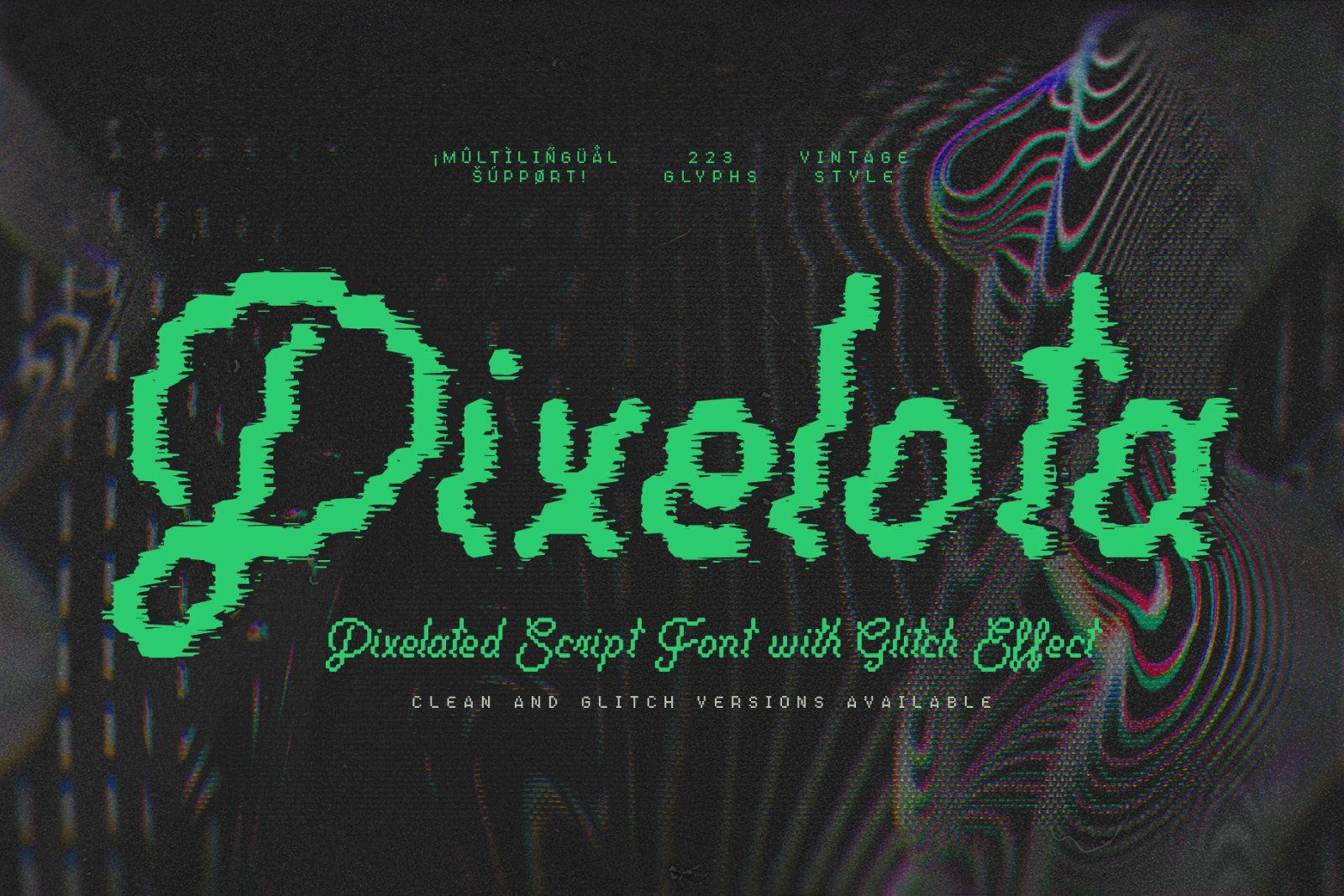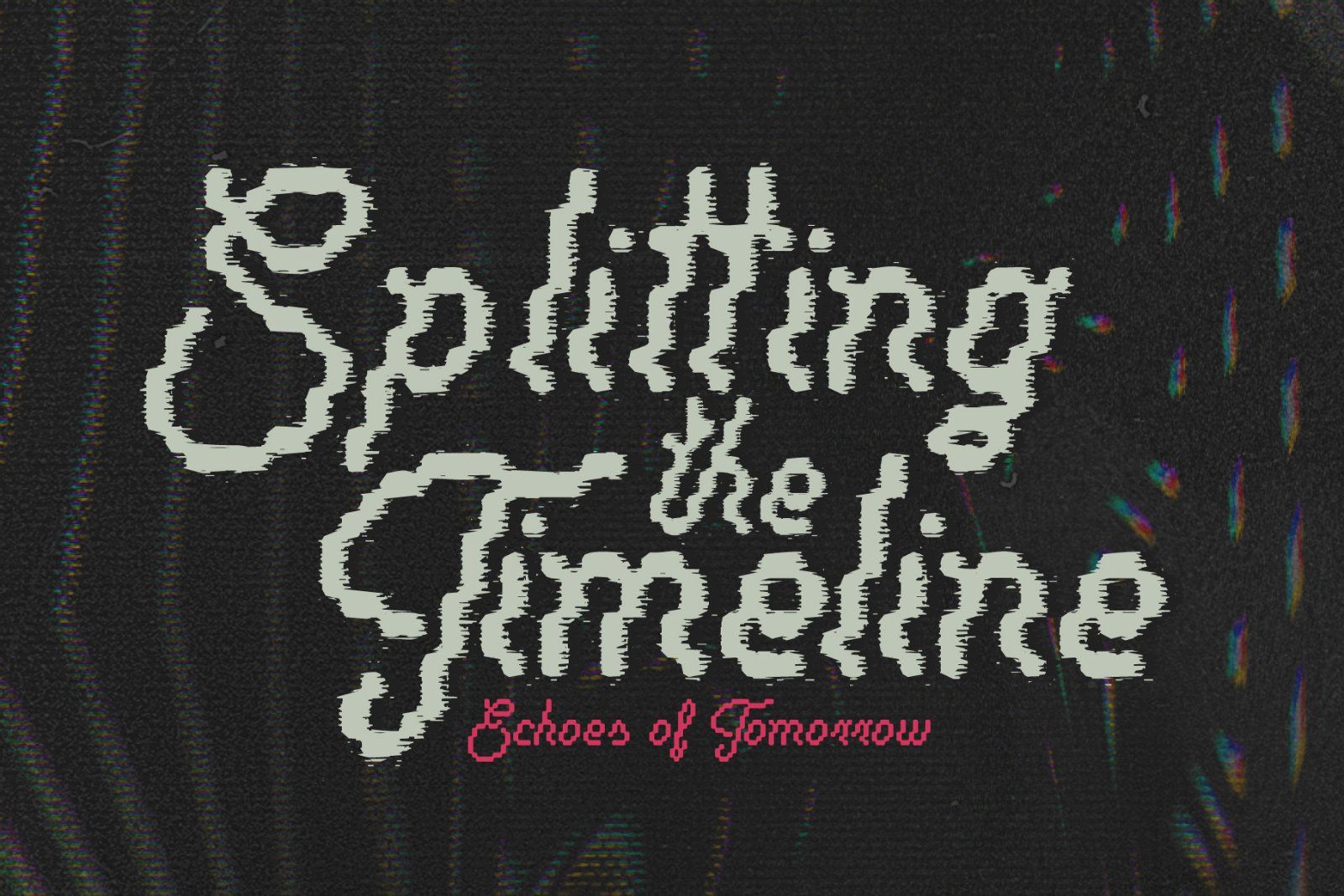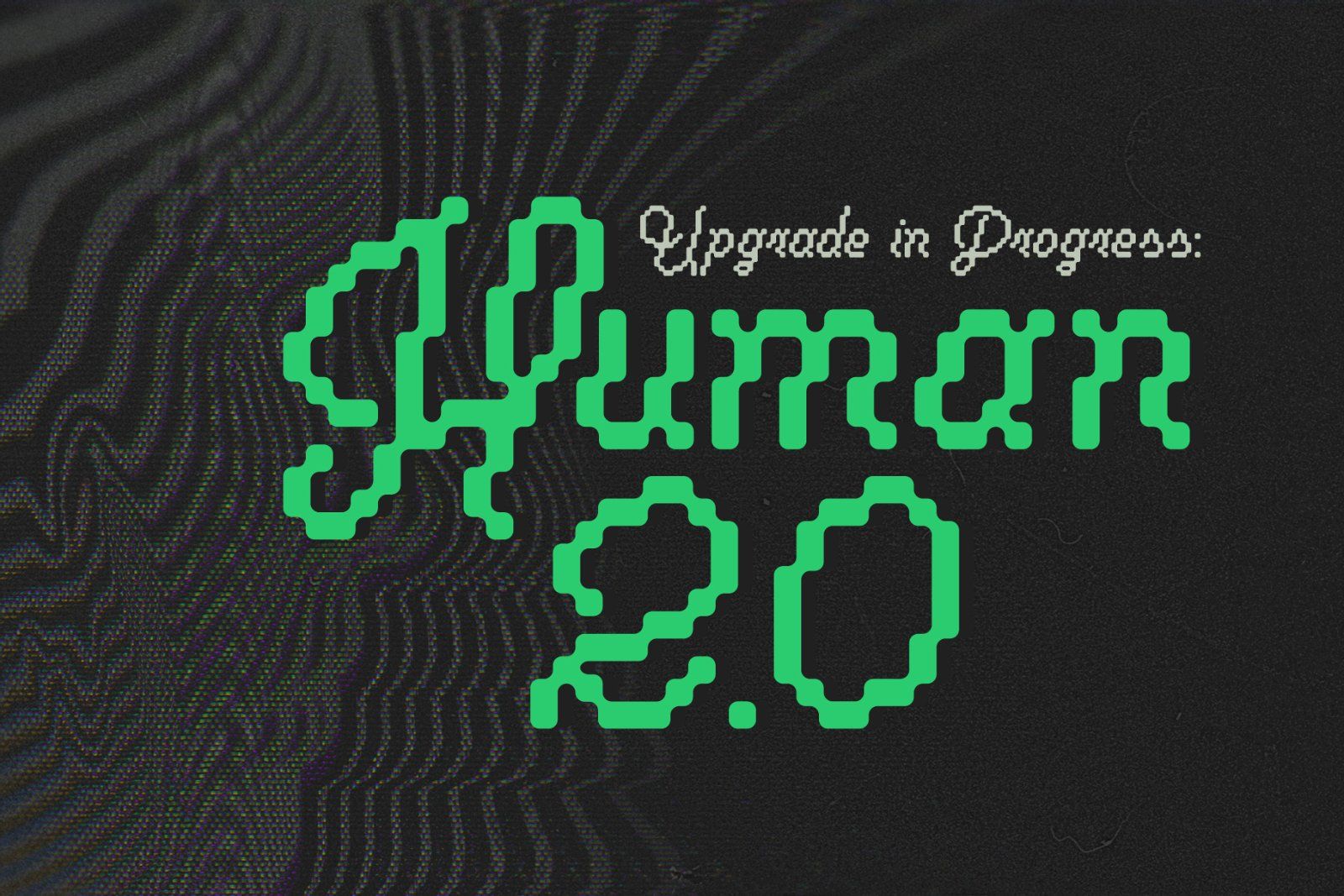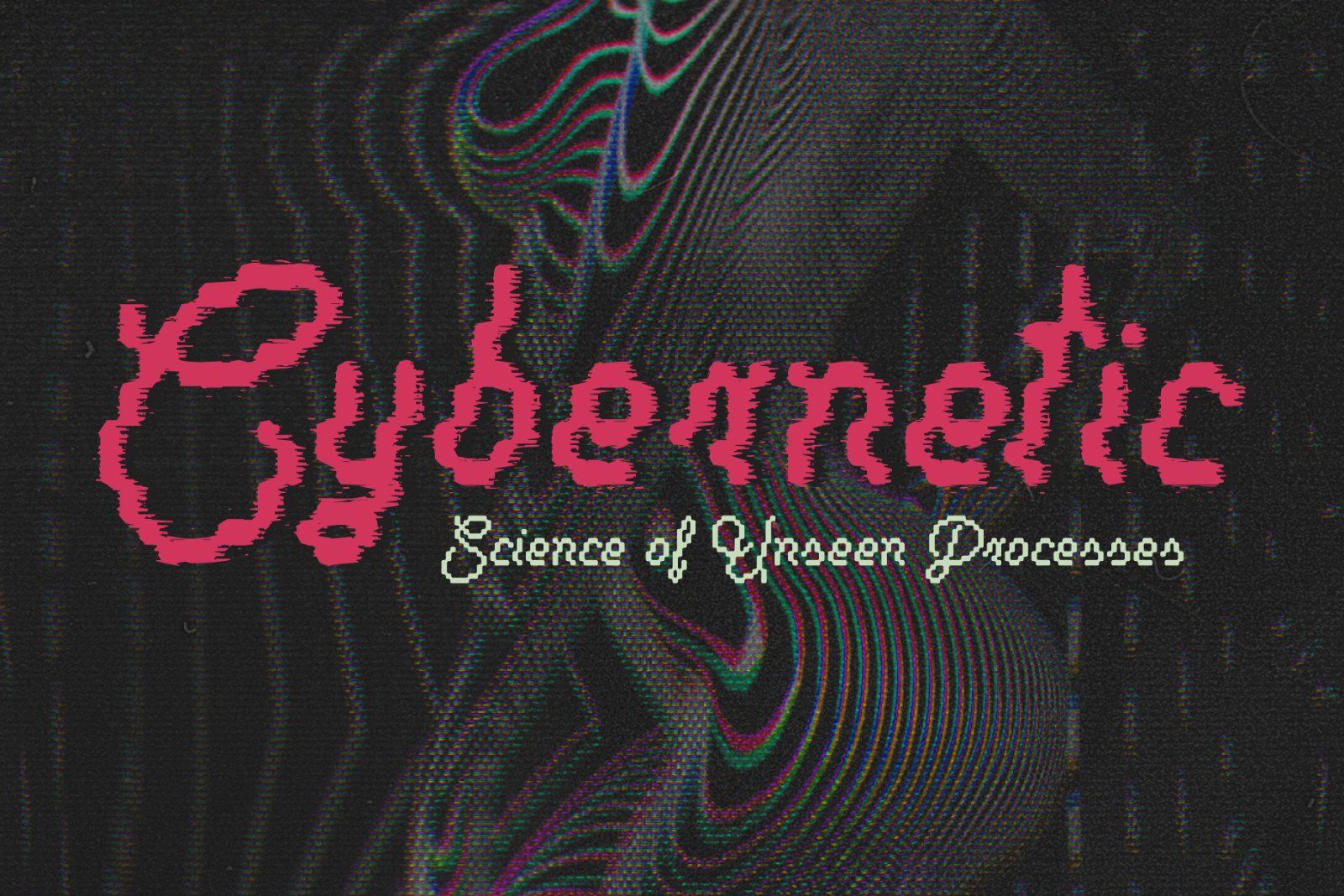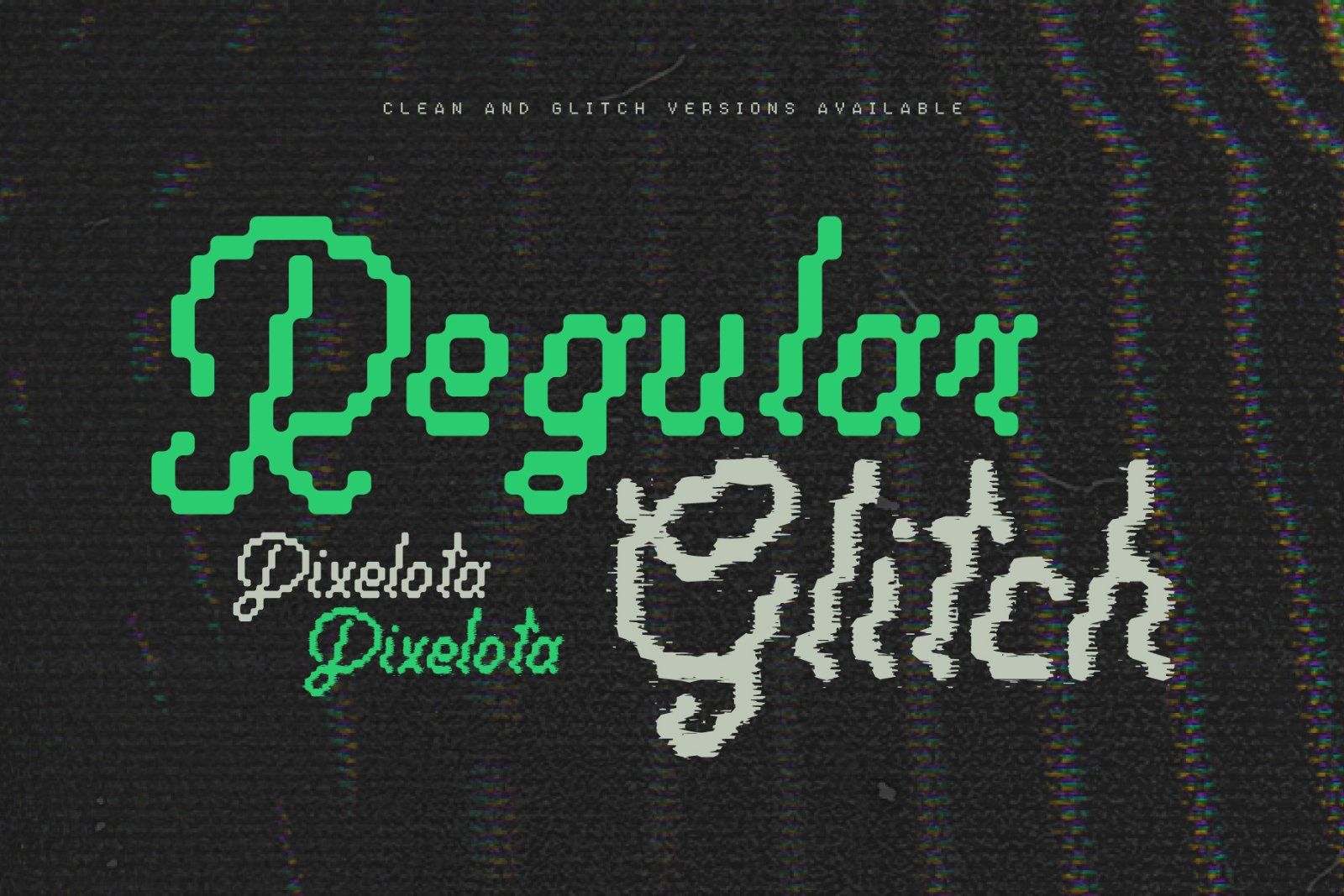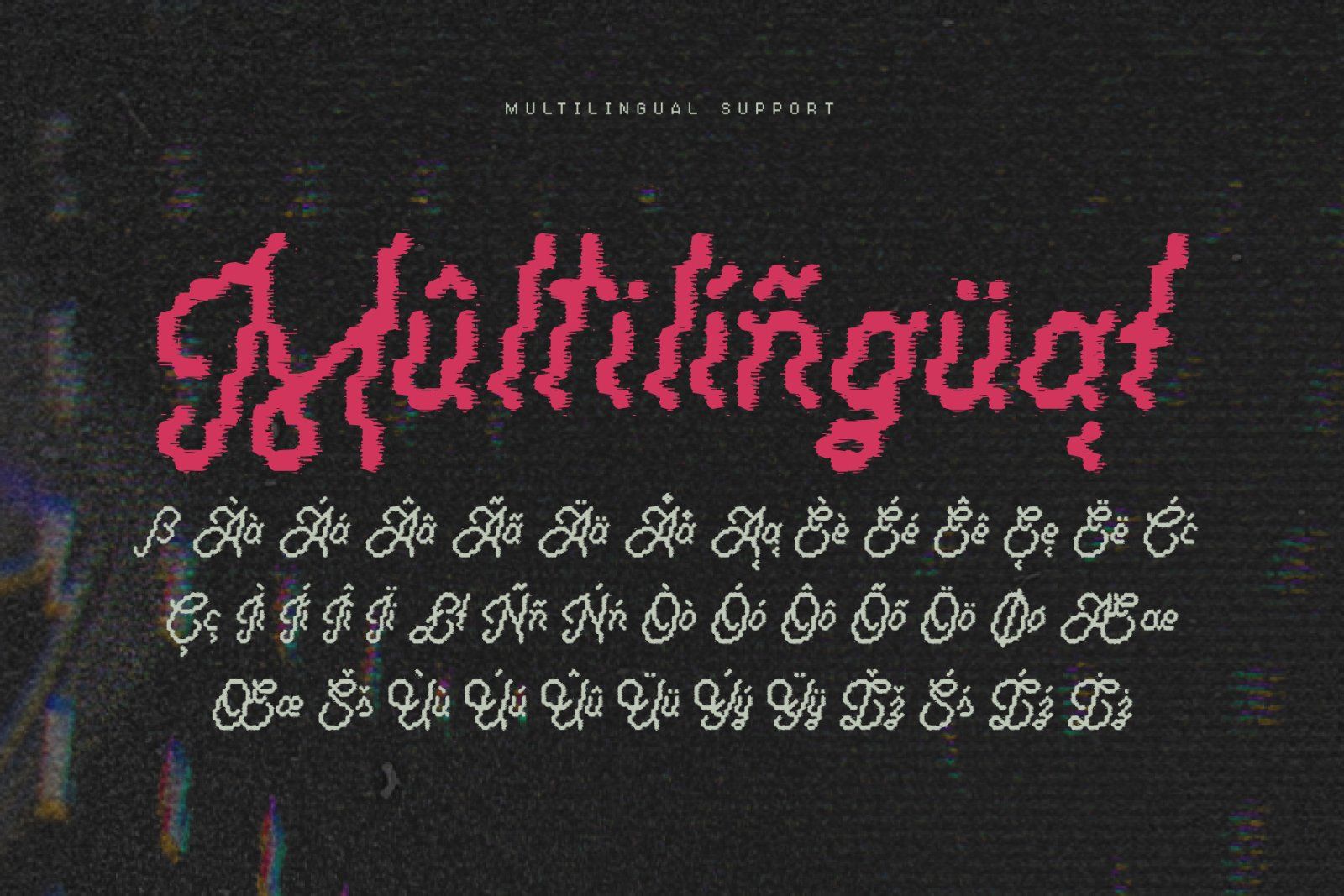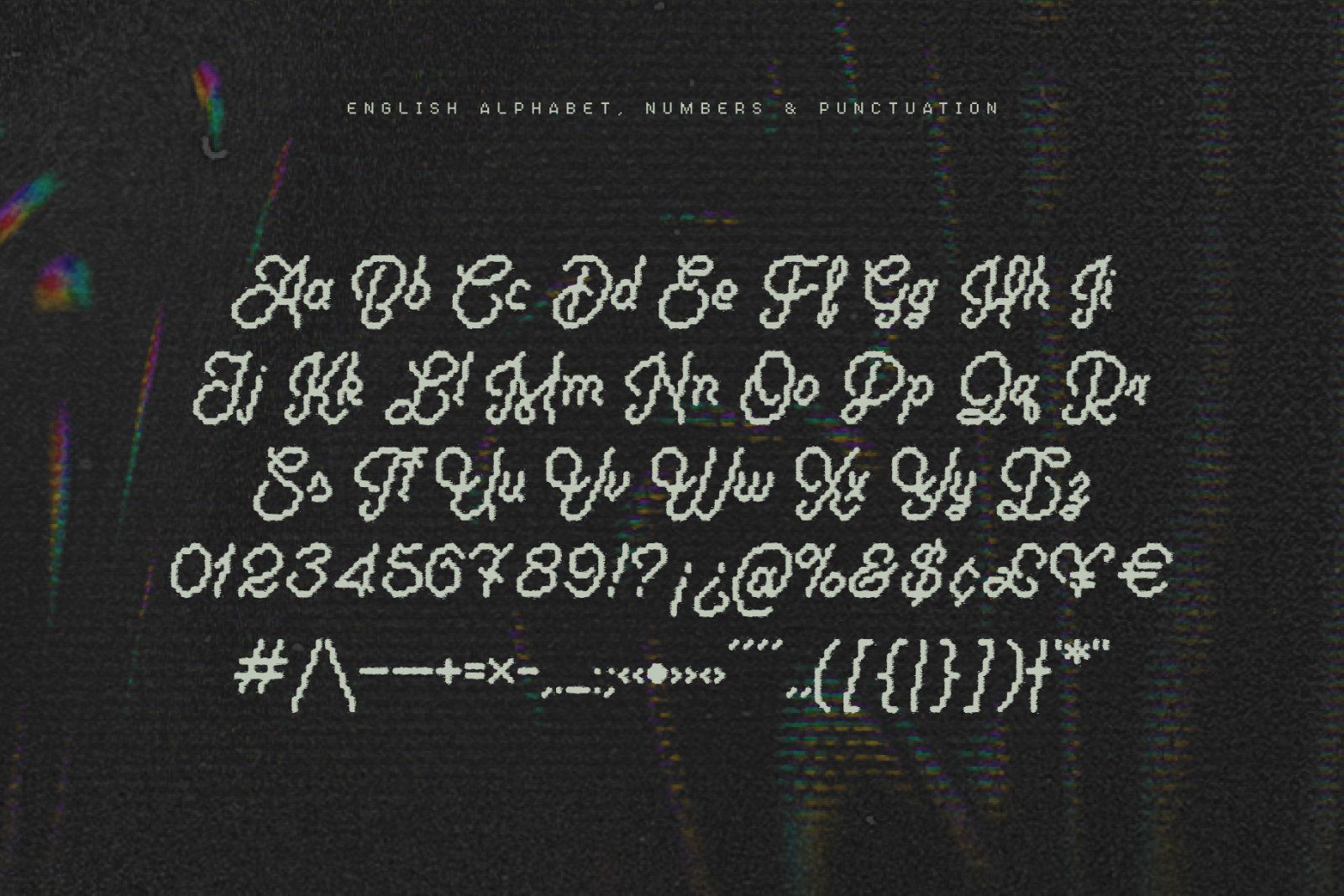
Introducing Pixelota, a vintage pixelated script font with a unique blend of vintage Y2K vibes and authentic modern design. This font is available in two versions — regular clean and distorted glitch. Whether you’re designing edgy streetwear graphics, retro-gaming interfaces, or bold social media posters, Pixelota brings a nostalgic yet high-tech energy to any creative project.
Pixelota font has a set of 223 characters, including few ligatures and multilingual support. Check out the screenshots to see the full character set.